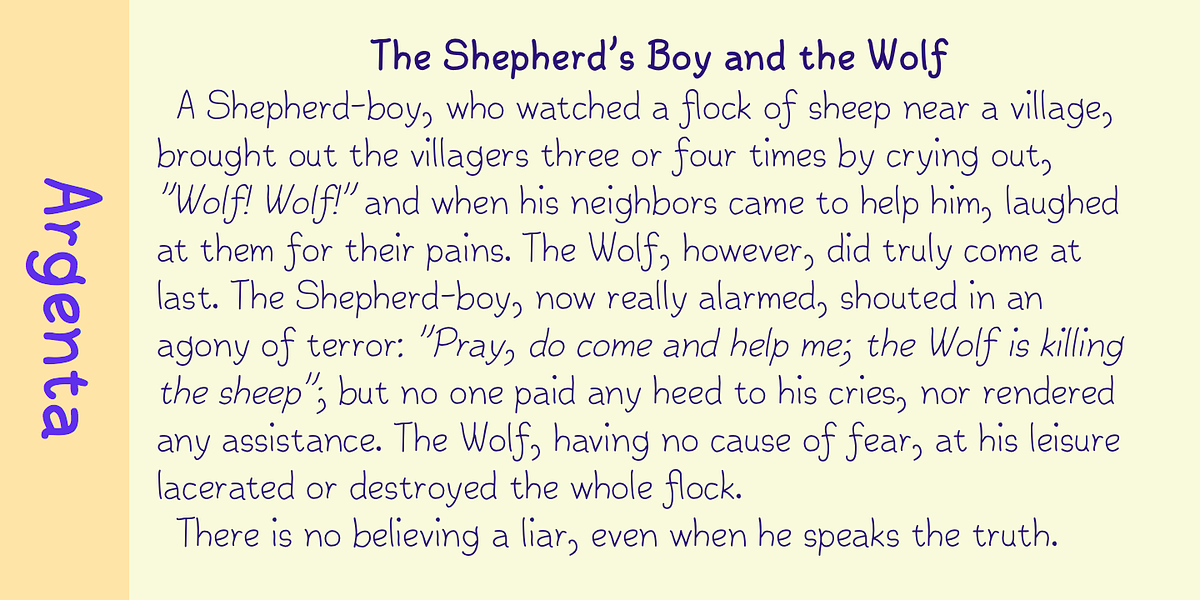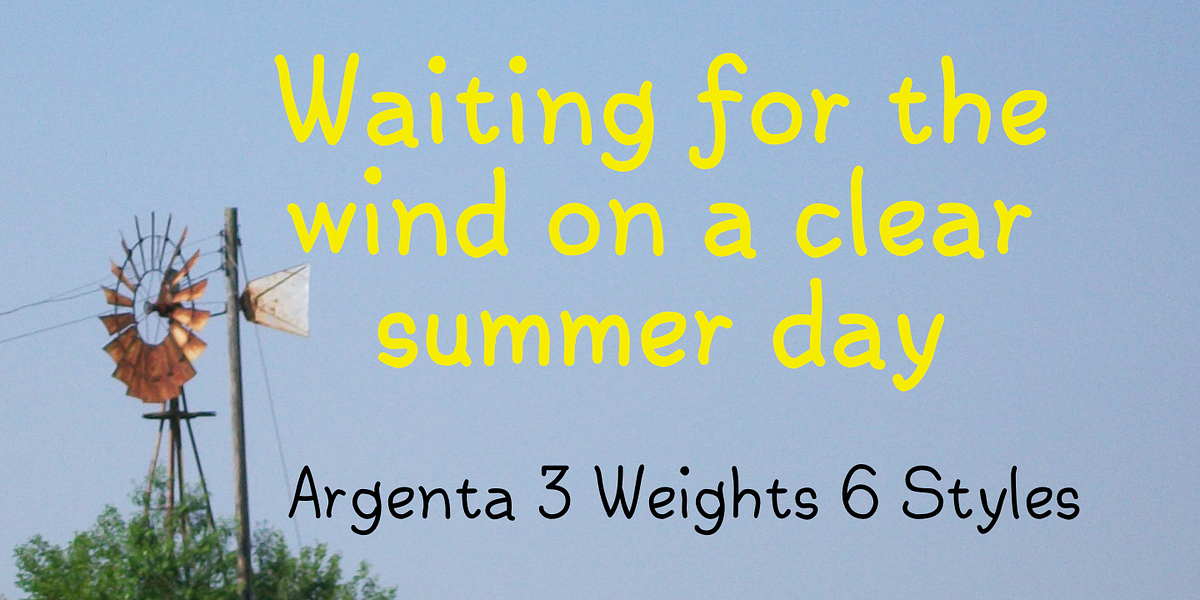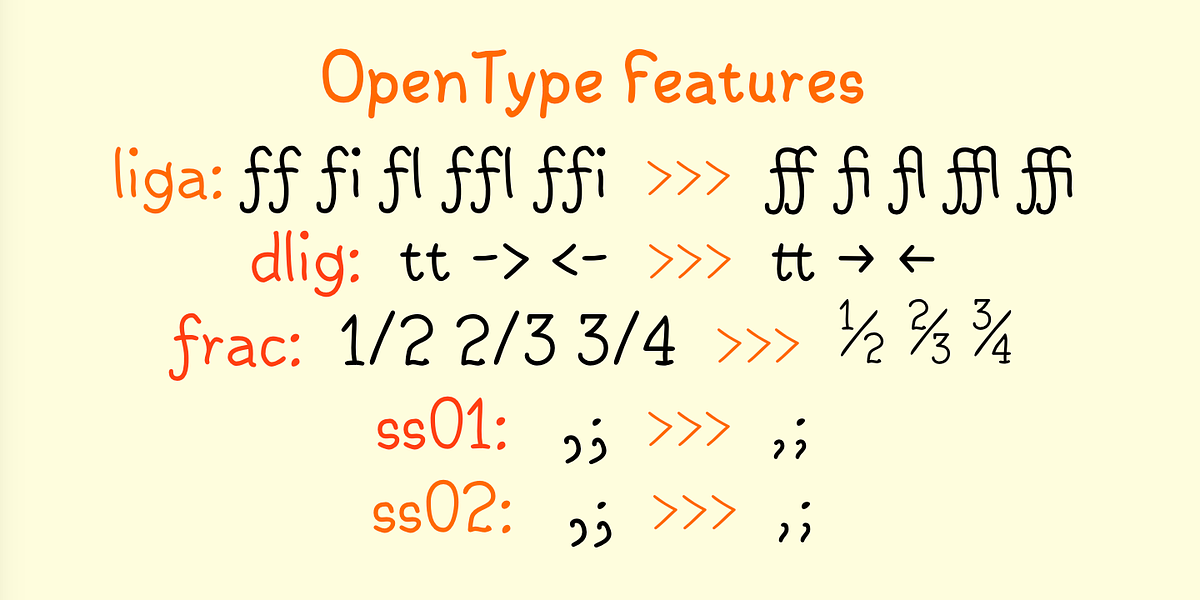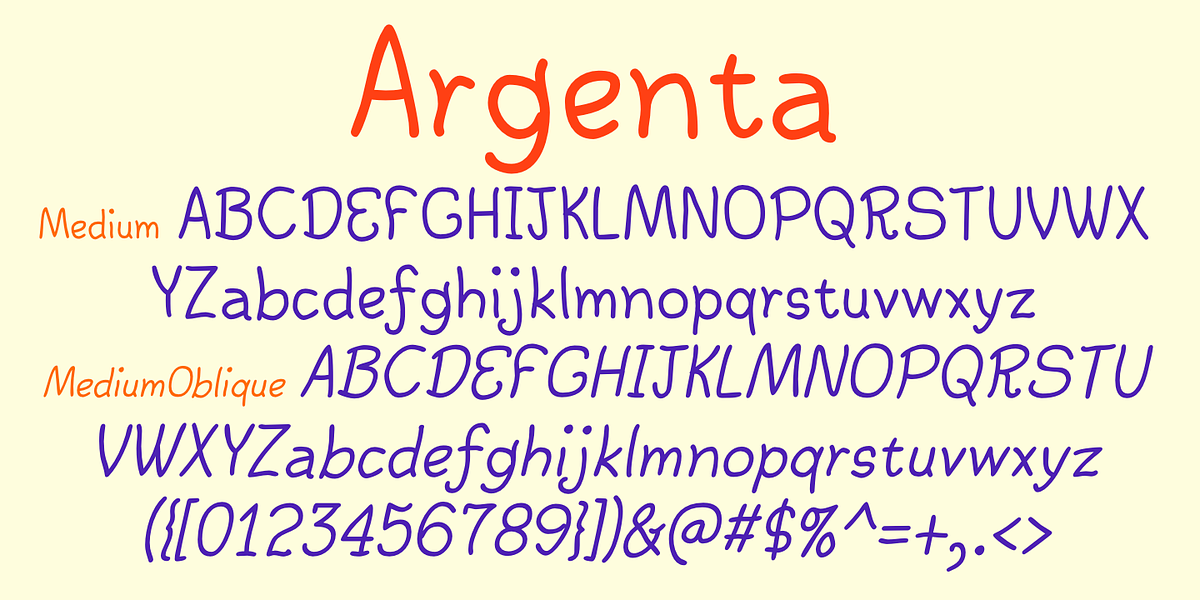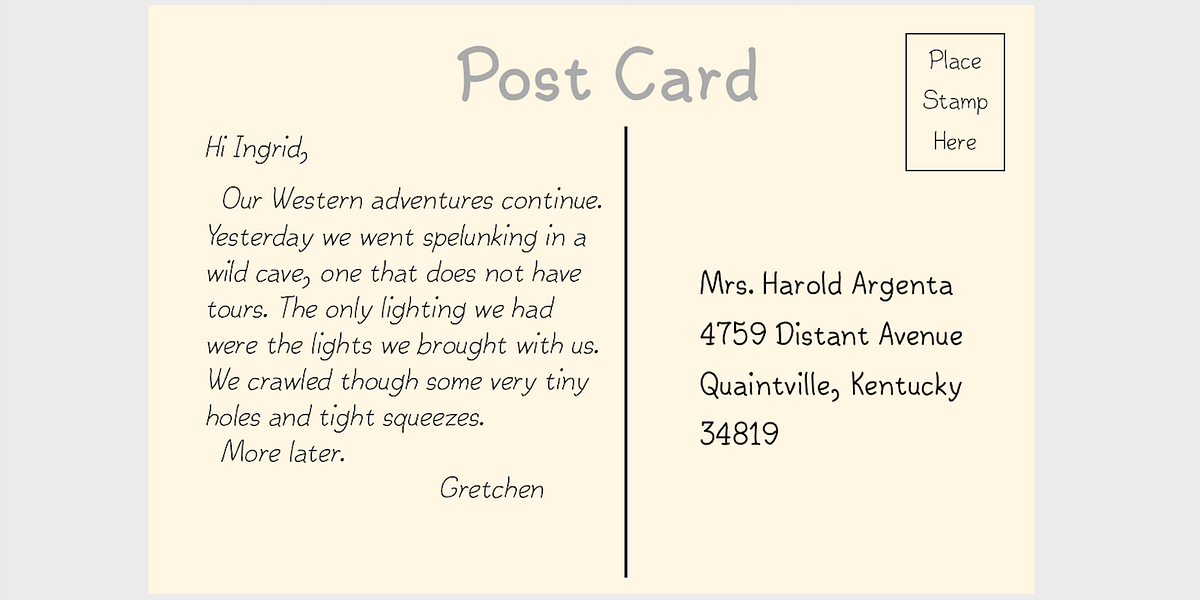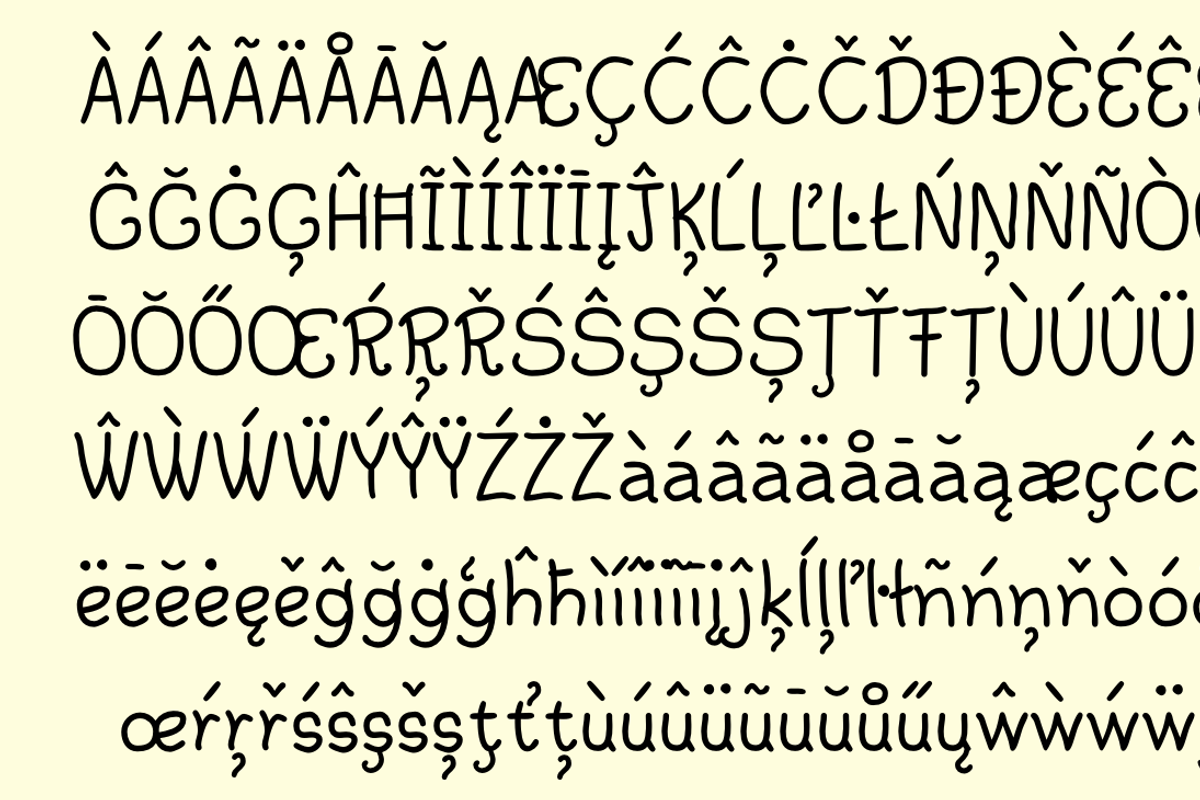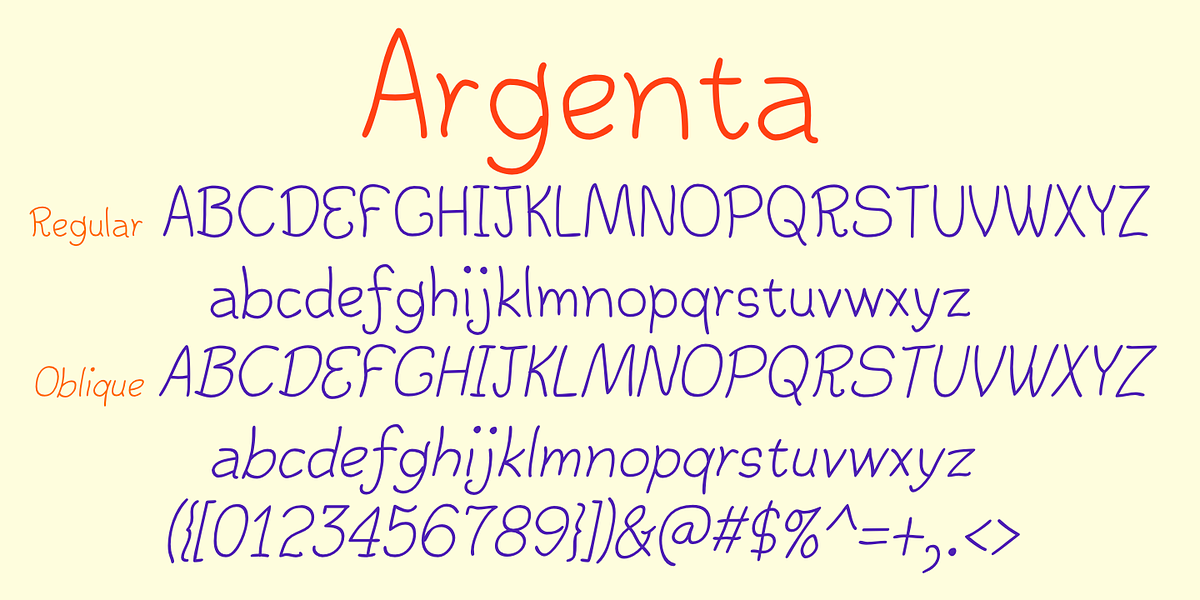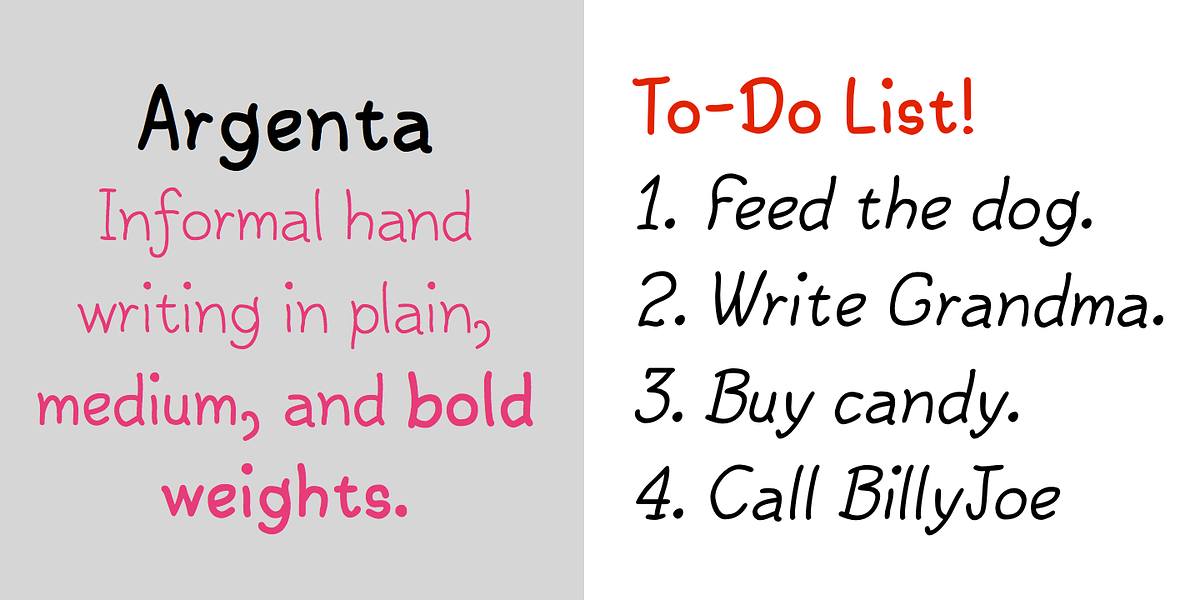
Argenta
Argenta is a whimsical handwritten font designed to evoke the appearance of a child's writing. It comes in three weights (thin, regular, and bold), each with an oblique style option. The ArgentaBobbed variant further enhances this playful aesthetic by adding dots or 'ball serifs' to the ends of letters.